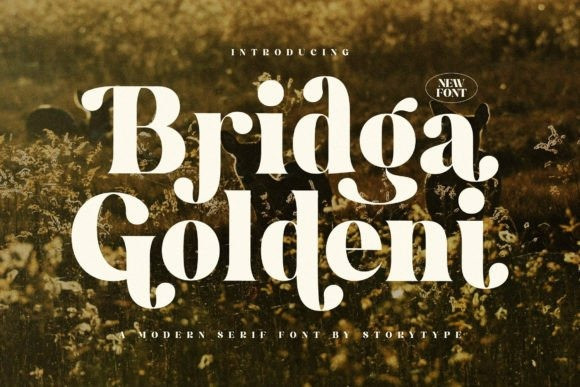
Bridga Goldeni Font
Bridga Goldeni Font is a modern and stylish serif font that has its own unique appearance. This typeface is perfect for an elegant and luxurious logo, fashion brands, magazines, apparel, lettering, quotes, and so much more.